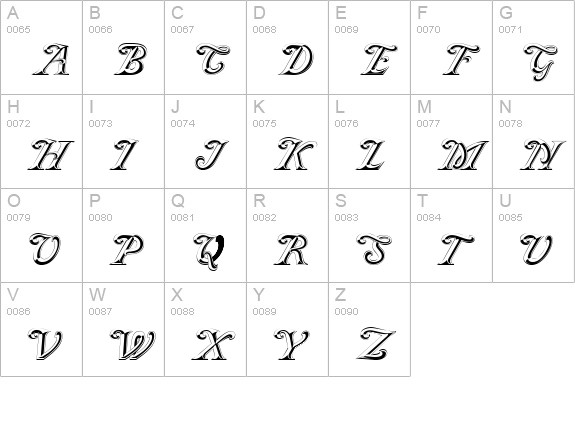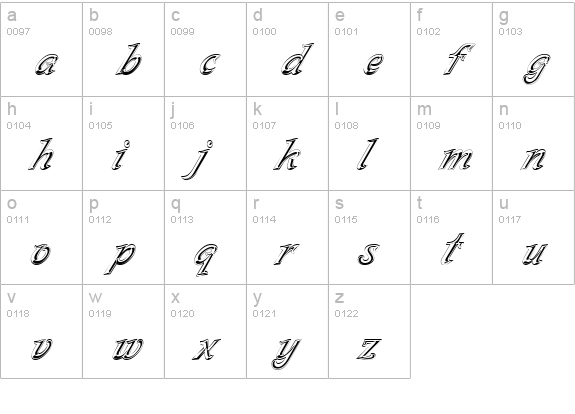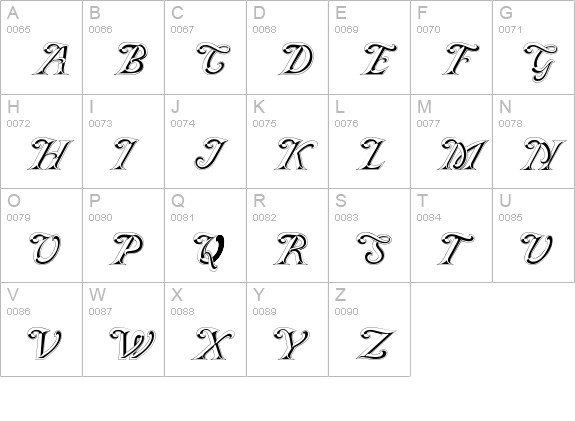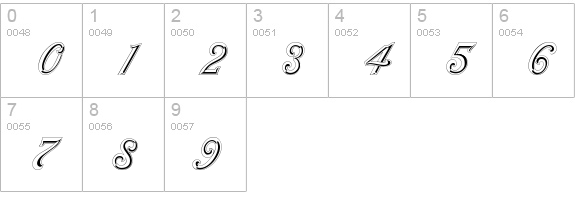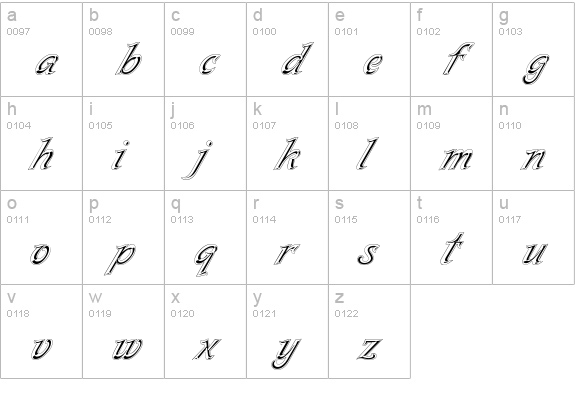
SilverPlate Regular Font Details
SilverPlate Regular is the standard, neutral variant in the SilverPlate typeface family \xE2\x80\x94 well suited to general body text, paragraphs, and standard typographic work.
Introducing SilverPlate Regular, a modern and stylish font that exudes sophistication and elegance. With its clean lines and effortlessly sleek design, this font is perfect for adding a touch of refinement to any project. SilverPlate Regular is a versatile font that can be used for a wide range of purposes, from branding and logo design to advertising and editorial work. Its timeless appeal makes it suitable for both digital and print projects, ensuring that your message is conveyed with utmost clarity and professionalism. But what sets SilverPlate Regular apart is not just its stunning aesthetics, but also its accessibility. This font is available for free download at FontsMarket.com, allowing designers, creatives, and enthusiasts alike to utilize its beauty without any cost. Whether you're a seasoned professional or a beginner looking to experiment with typography, SilverPlate Regular is the perfect choice to elevate your design game. With SilverPlate Regular, you have the freedom to express your creativity without any limitations. Its extensive character set includes uppercase and lowercase letters, numerals, punctuation, and special characters, providing you with all the tools you need to craft visually stunning and engaging designs. So why wait? Enhance your projects with the timeless elegance of SilverPlate Regular and make a lasting impression. Download this font for free at FontsMarket.com and unlock a world of possibilities for your design endeavors.